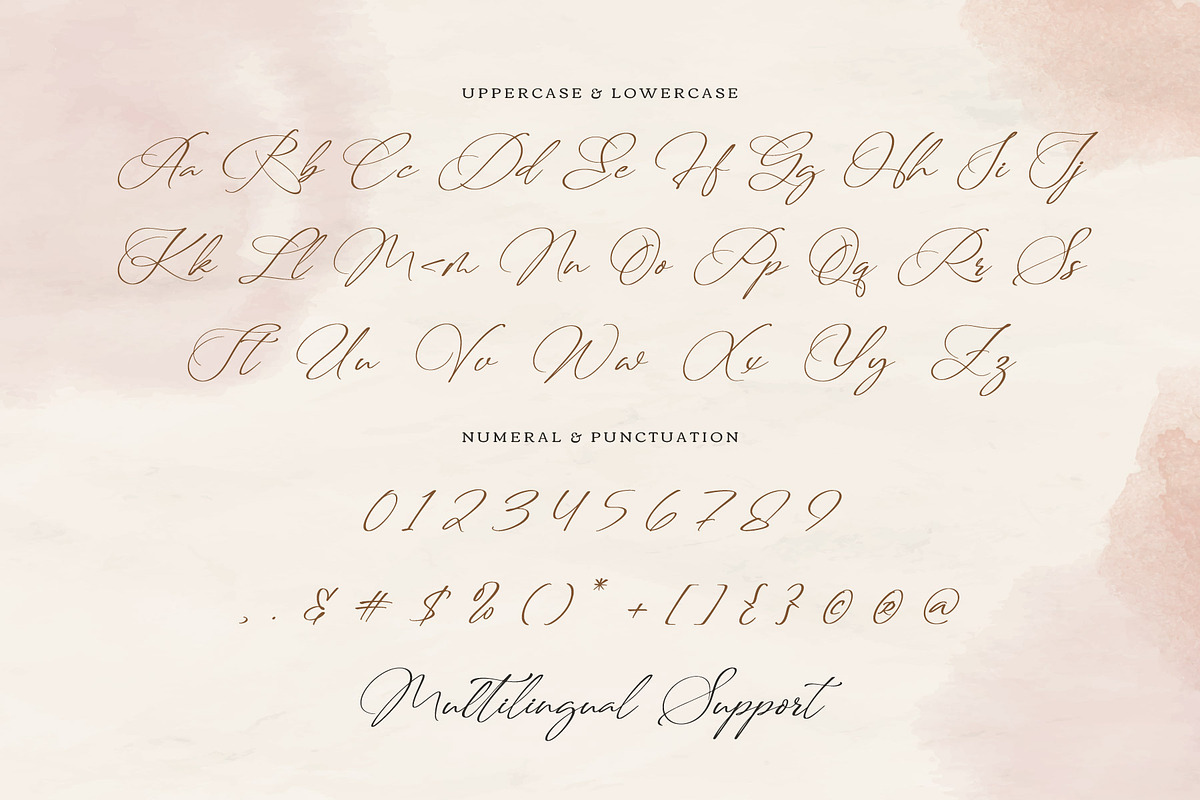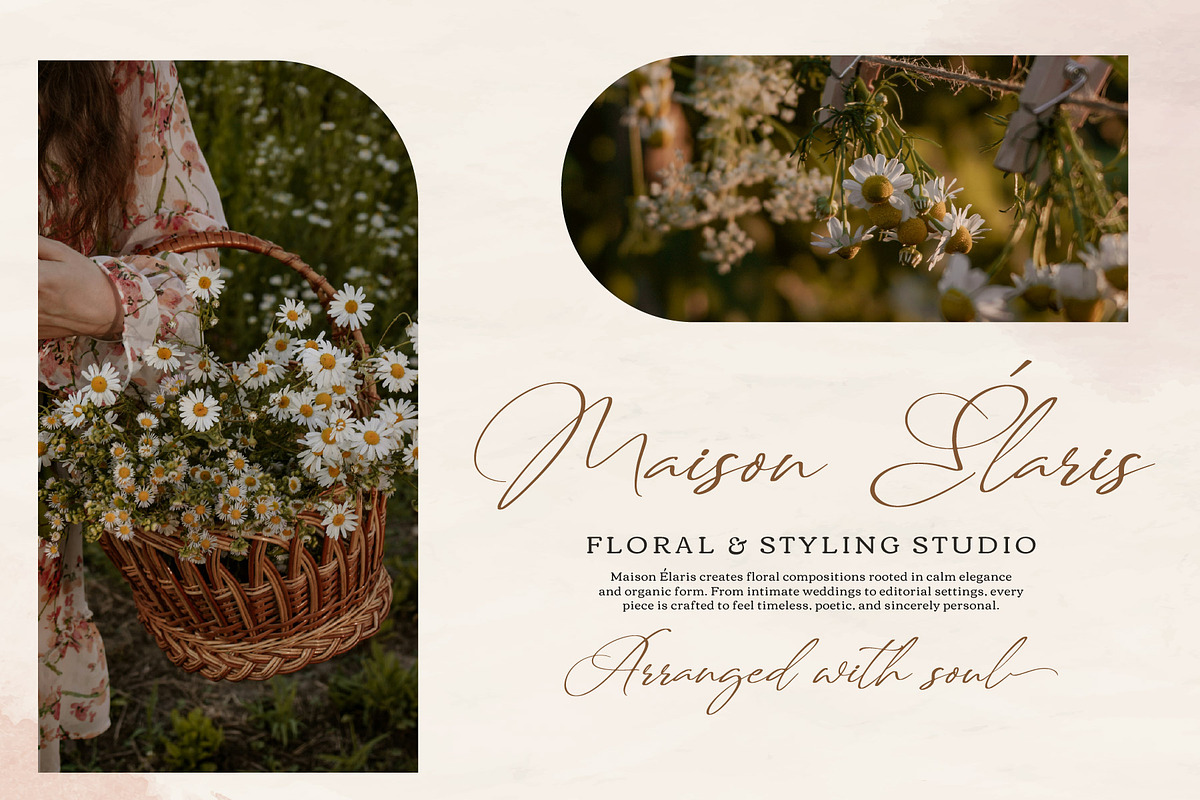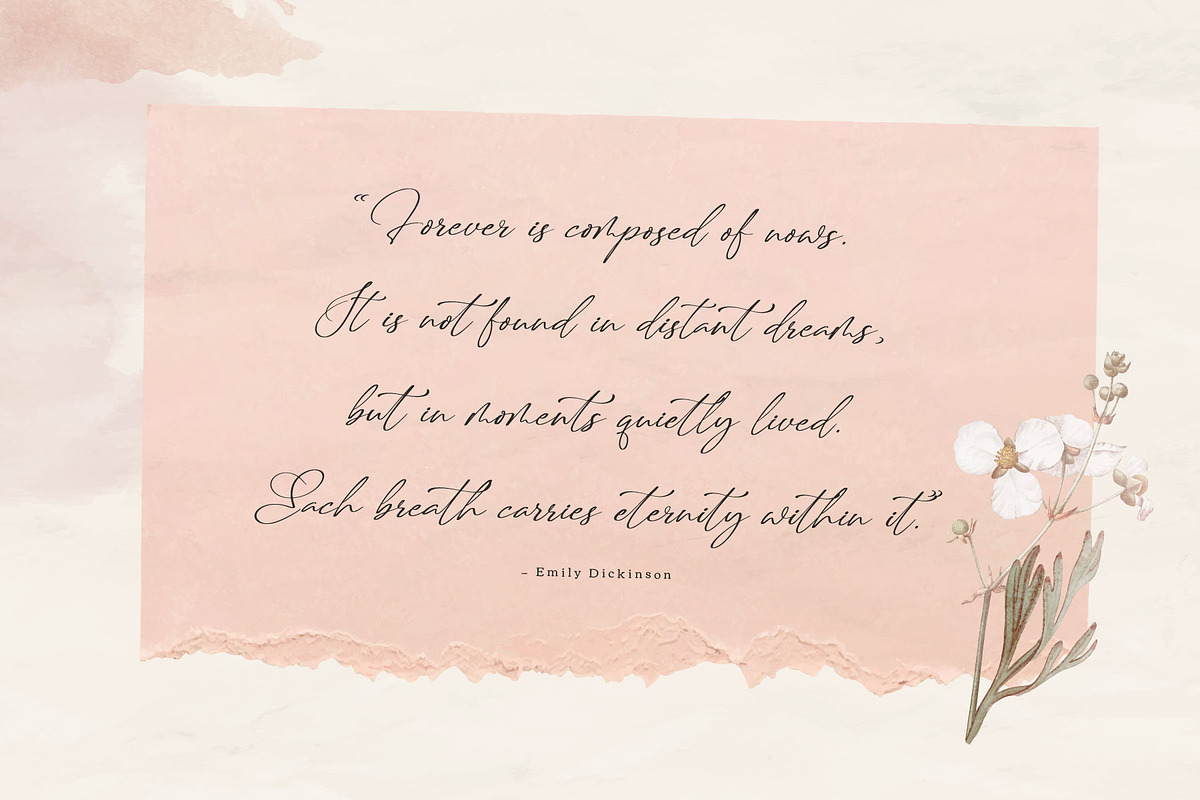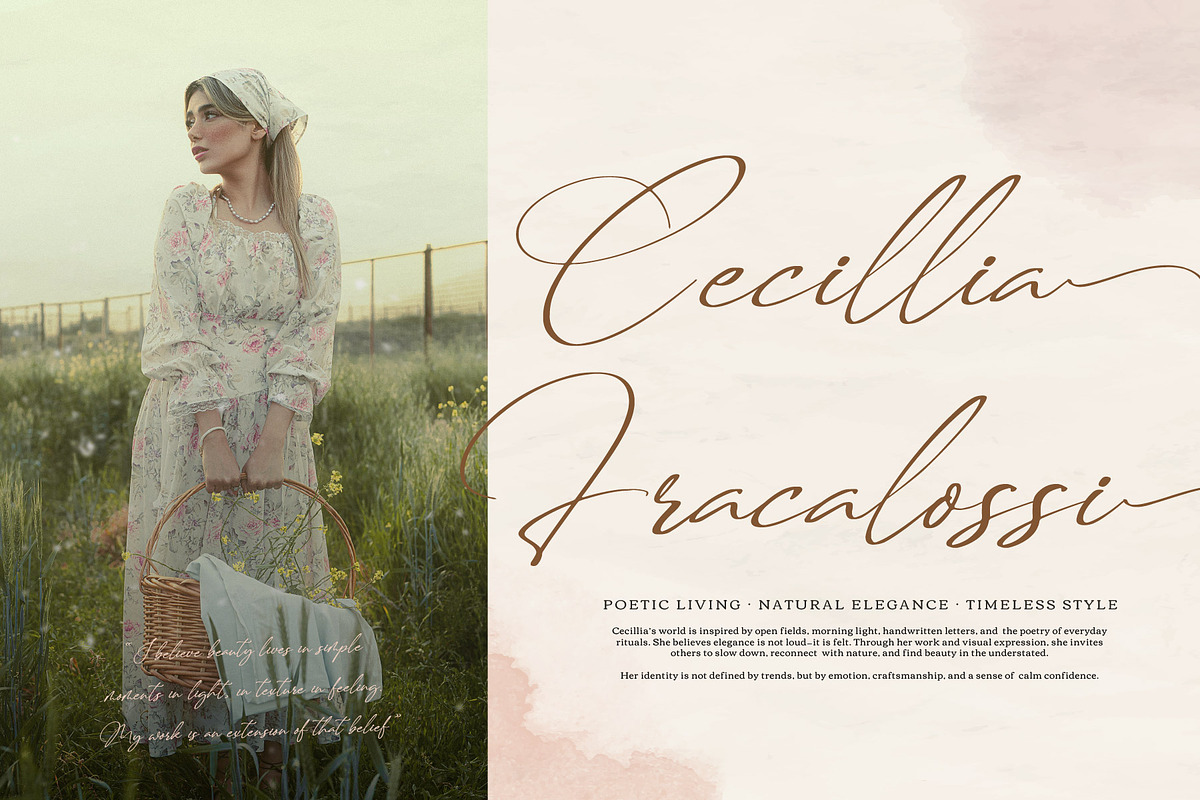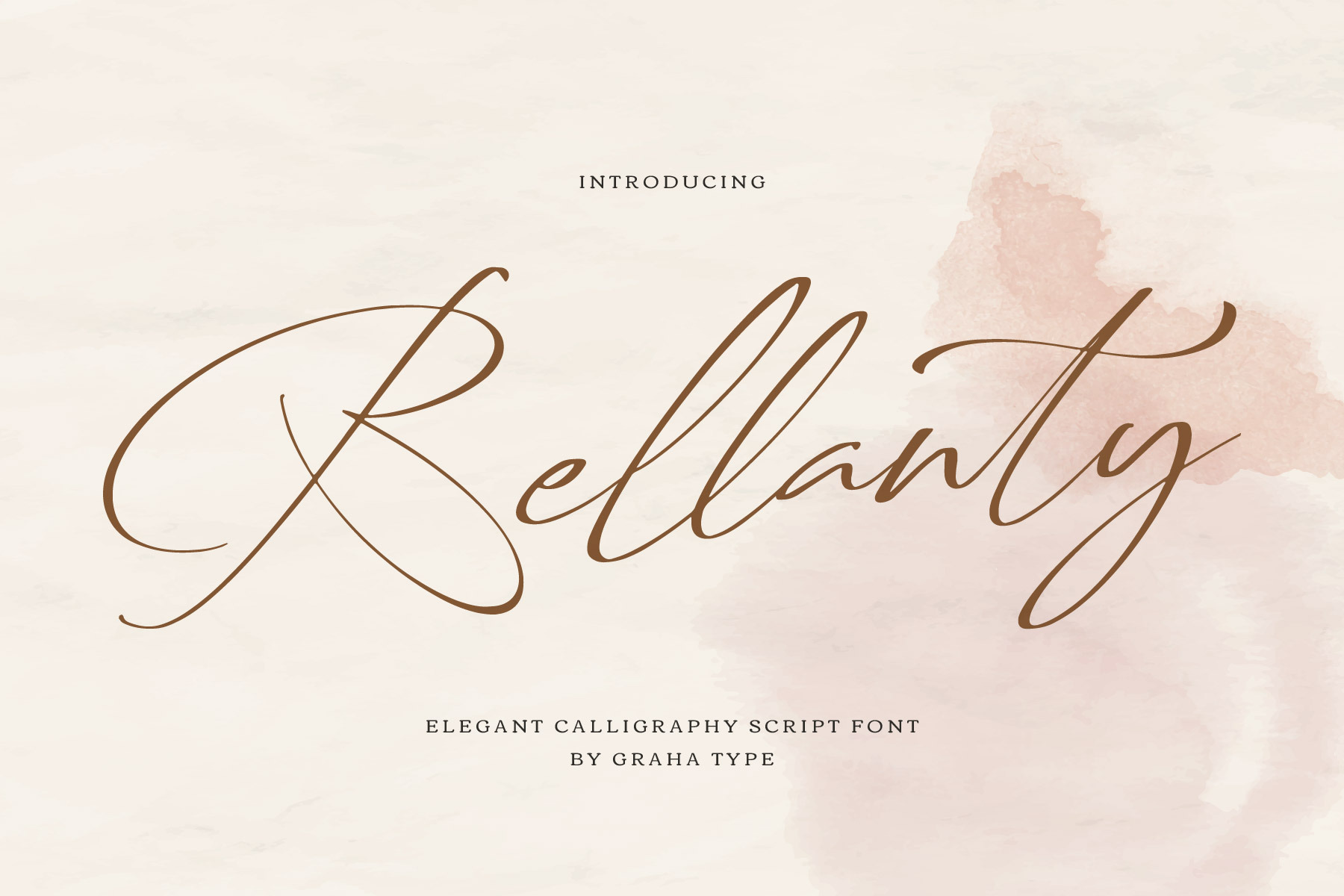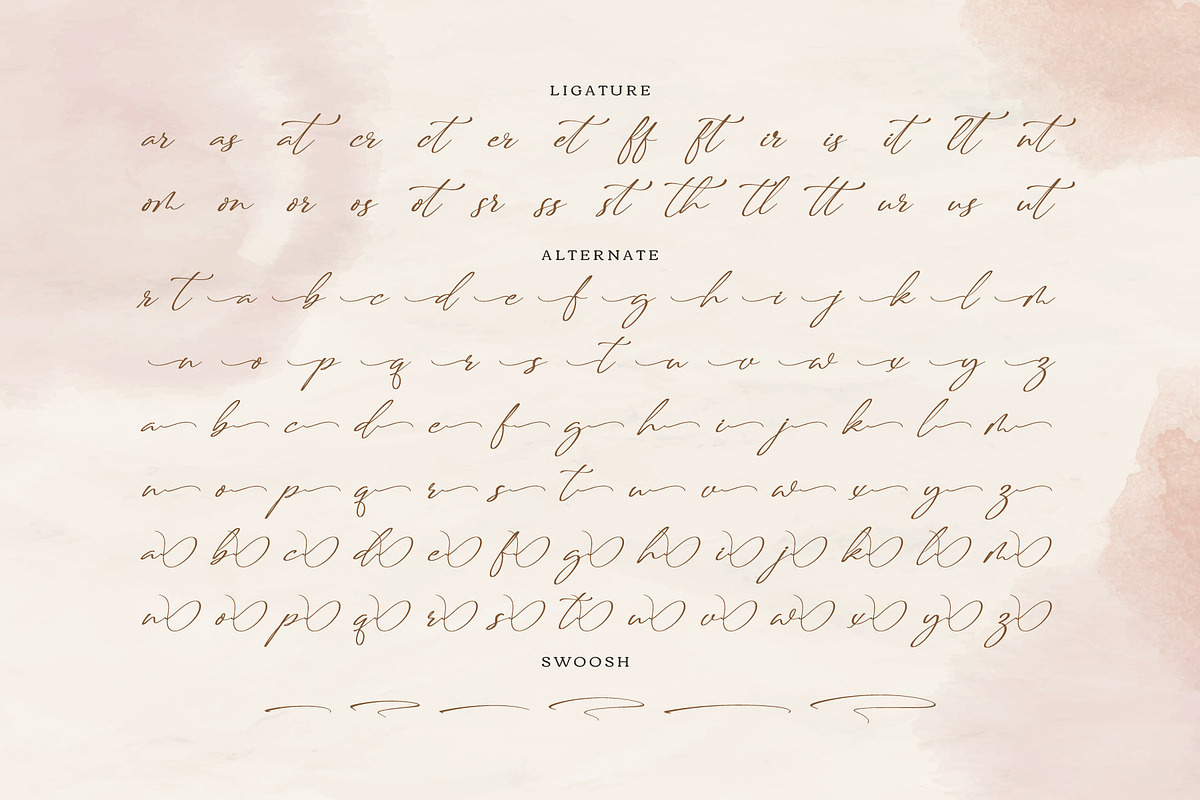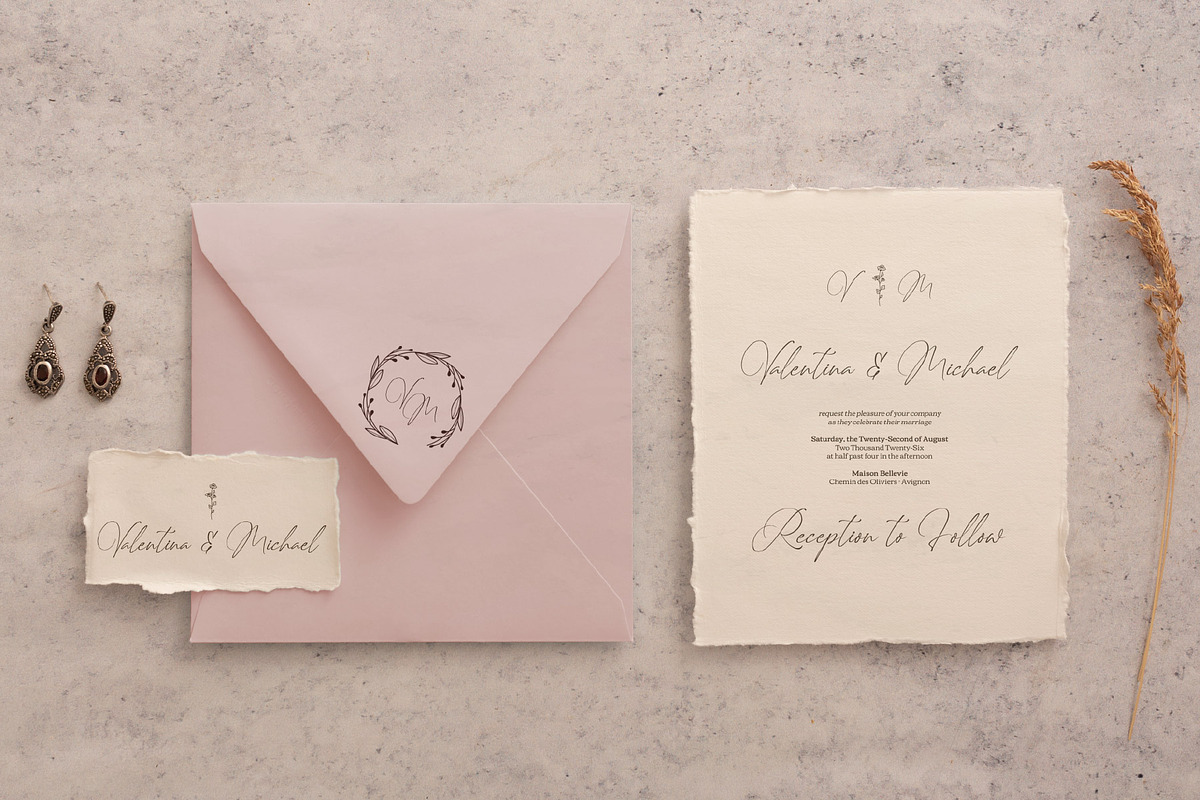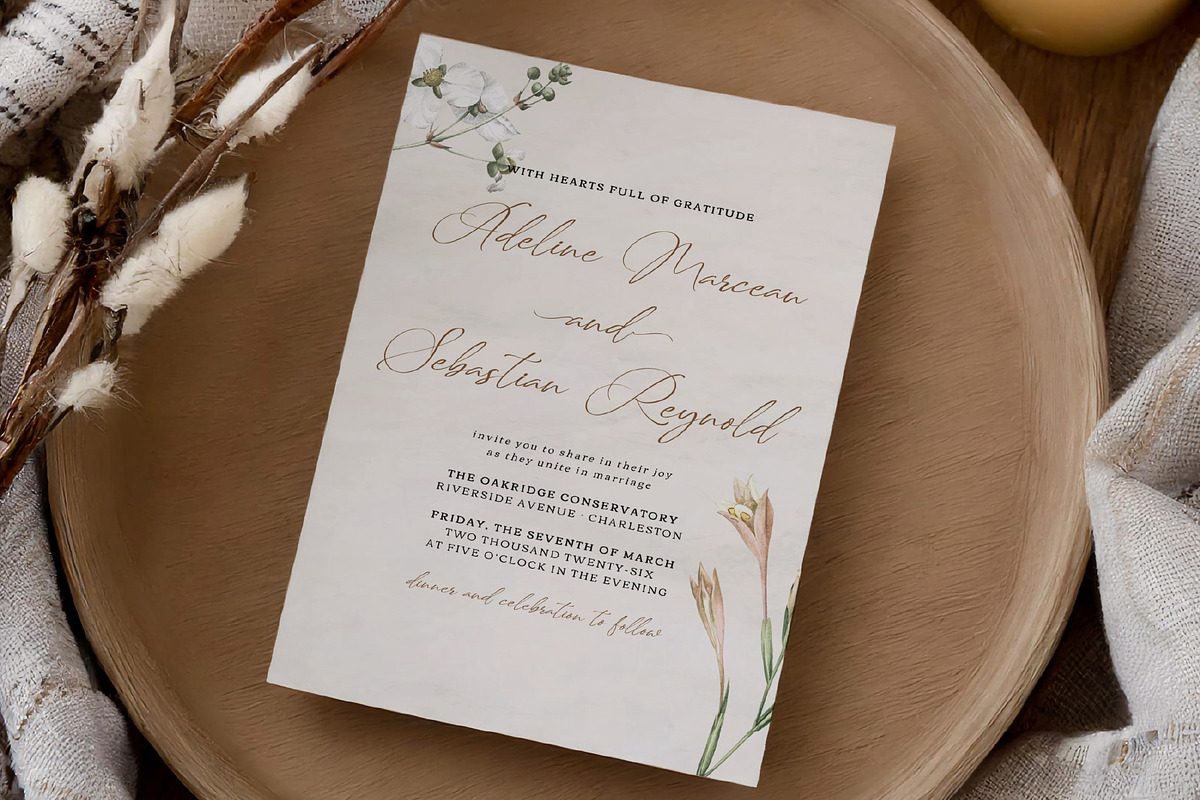
Bellanty - Elegant Script Font
Bellanty is an elegant calligraphy script font with smooth strokes and graceful curves, created to deliver a luxurious and romantic feel. Perfect for designers who need a classy handwritten style for both modern and timeless projects.
This font is ideal for logos, wedding invitations, branding, fashion and beauty designs, social media graphics, packaging, stationery, and editorial layouts.
- Opentype Features (Alternates & Ligatures)
Create elegant and timeless designs with Bellanty.